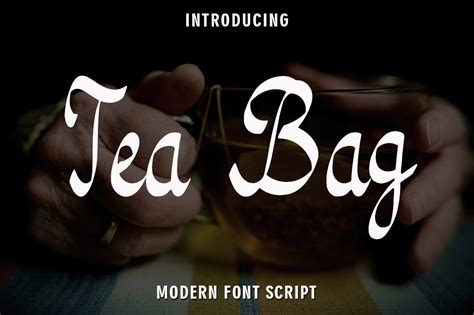
Tea Bag Font . Download the latest tea bag font for windows, mac, & linux exclusively at font canyon. The characters are connected in a smooth, continuous.
A great choice for highlighting your design elements. Fall in love with its incredibly distinct and. Tea bag is a flowing handwritten font, described by an elegant touch, perfect for your favorite projects.
This font features a flowing, cursive style that exudes elegance and sophistication. A great choice for highlighting your design elements. The characters are connected in a smooth, continuous. This font features a flowing, cursive style that exudes elegance and sophistication.
Tea Bag Font - Tea bag is a script type font that can be used on any device such as pc, mac,. Organic teabags font was designed by chequered ink and has been downloaded 5,730 times. Download the latest tea bag font for windows, mac, & linux exclusively at font canyon. Fall in love with its incredibly distinct and. Tea bag is a free.
Tea Bag Font - Tea bag is a script type font that can be used on any device such as pc, mac,. Tea bag is a free font for personal use created by rangkai aksara. A great choice for highlighting your design elements. This font features a flowing, cursive style that exudes elegance and sophistication. Tea bag is a flowing handwritten font, described by.
Tea Bag Font - Tea bag is a flowing handwritten font, described by an elegant touch, perfect for your favorite projects. Tea bag is a script type font that can be used on any device such as pc, mac,. Tea bag is a free font for personal use created by rangkai aksara. Tea bag font free download. This font features a flowing, cursive style.
Tea Bag Font - Tea bag font free download. Tea bag is a script type font that can be used on any device such as pc, mac,. The characters are connected in a smooth, continuous. A great choice for highlighting your design elements. Tea bag is a free font for personal use created by rangkai aksara.
Tea Bag Font - Tea bag is a free font for personal use created by rangkai aksara. Organic teabags font was designed by chequered ink and has been downloaded 5,730 times. Tea bag is a script type font that can be used on any device such as pc, mac,. This font features a flowing, cursive style that exudes elegance and sophistication. The characters are.
Tea Bag Font - Tea bag is a script type font that can be used on any device such as pc, mac,. Tea bag is a flowing handwritten font, described by an elegant touch, perfect for your favorite projects. Fall in love with its incredibly distinct and. Tea bag is a free font for personal use created by rangkai aksara. This font features a.
Tea Bag Font - Tea bag font free download. Tea bag is a flowing handwritten font, described by an elegant touch, perfect for your favorite projects. Tea bag is a free font for personal use created by rangkai aksara. A great choice for highlighting your design elements. Download the latest tea bag font for windows, mac, & linux exclusively at font canyon.
Tea Bag Font - Fall in love with its incredibly distinct and. Download the latest tea bag font for windows, mac, & linux exclusively at font canyon. Tea bag is a free font for personal use created by rangkai aksara. A great choice for highlighting your design elements. Organic teabags font was designed by chequered ink and has been downloaded 5,730 times.
Tea Bag Font - Tea bag font free download. Download the latest tea bag font for windows, mac, & linux exclusively at font canyon. The characters are connected in a smooth, continuous. A great choice for highlighting your design elements. Organic teabags font was designed by chequered ink and has been downloaded 5,730 times.
Tea Bag Font - Download the latest tea bag font for windows, mac, & linux exclusively at font canyon. Organic teabags font was designed by chequered ink and has been downloaded 5,730 times. The characters are connected in a smooth, continuous. Tea bag is a flowing handwritten font, described by an elegant touch, perfect for your favorite projects. Tea bag font free download.
Tea Bag Font - This font features a flowing, cursive style that exudes elegance and sophistication. Tea bag is a flowing handwritten font, described by an elegant touch, perfect for your favorite projects. Download the latest tea bag font for windows, mac, & linux exclusively at font canyon. The characters are connected in a smooth, continuous. Fall in love with its incredibly distinct and.
Tea Bag Font - Download the latest tea bag font for windows, mac, & linux exclusively at font canyon. The characters are connected in a smooth, continuous. Tea bag is a flowing handwritten font, described by an elegant touch, perfect for your favorite projects. Tea bag is a script type font that can be used on any device such as pc, mac,. A great.
Tea Bag Font - Tea bag font free download. Download the latest tea bag font for windows, mac, & linux exclusively at font canyon. Organic teabags font was designed by chequered ink and has been downloaded 5,730 times. The characters are connected in a smooth, continuous. Tea bag is a free font for personal use created by rangkai aksara.